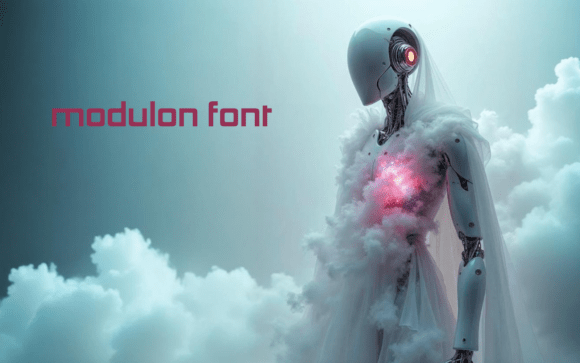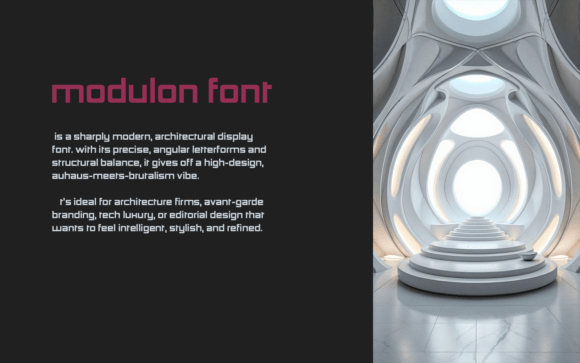
Modulon Font
Meet Modulon—a font where modernism meets geometry in perfect alignment.Crafted for visionaries, it frames every word with structure and elegance. From architecture studios to cutting-edge editorial, it elevates with purpose.Bold, clean, and unmistakably precise.Modulon: Design with a backbone.